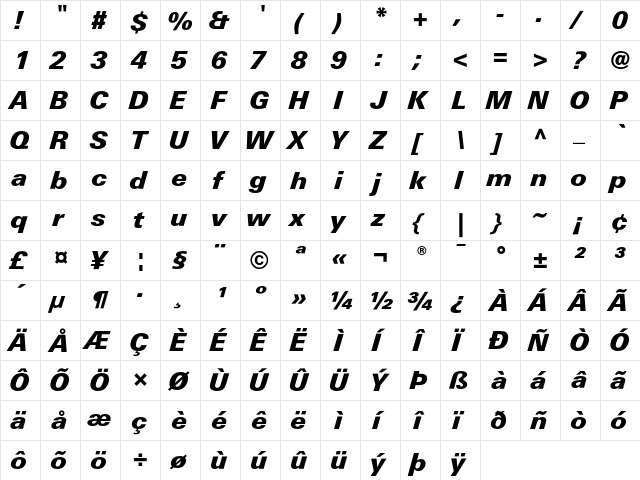
LinotypeUnivers BasicBlackItalic
Design Context for LinotypeUnivers Typeface
LinotypeUnivers offers clean, dependable letterforms without strong stylistic allegiance, making it a practical choice for designers who need flexibility. The slanted form adds forward momentum and visual energy.
Pro Tip: Try LinotypeUnivers for annotation and caption copy alongside an upright companion — the contrast in angle creates a dynamic but ordered typographic system.